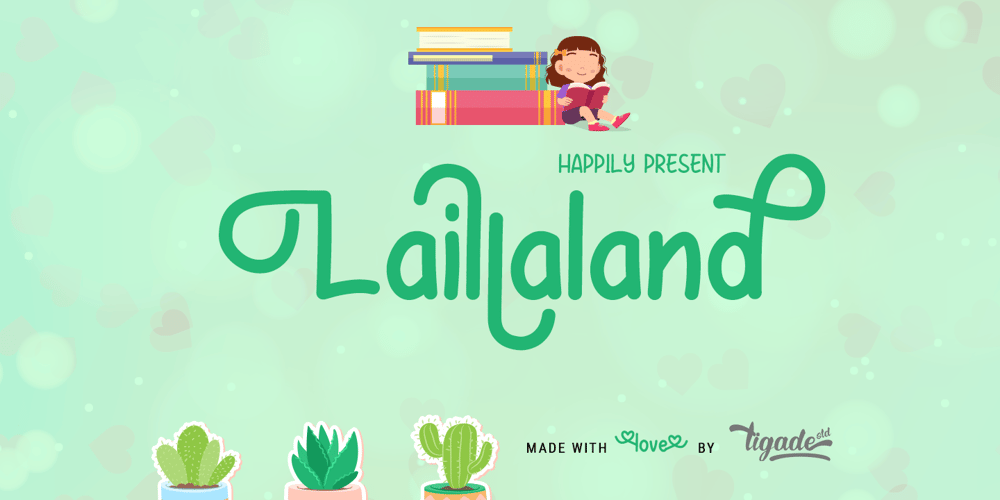
Laillaland
Laillaland font
Laillaland Font Family was designed by Doli Harahap and published by Tigade Std. Laillaland contains 1 styles and family package options. Lailaland is a beautiful handwritten font which was carefully created with a touch of elegance. Create a beautiful book cover, eye-catching social media posts, or even cute greeting cards. Fall in love with its undeniably clean feel font for an outstanding designs. It also features a wealth of special features including alternate glyphs and ligatures. Fall for Lailaland’s authentic feel and turn your creative ideas into a true piece of art!